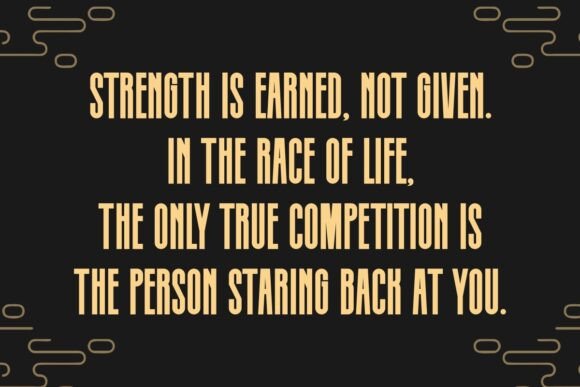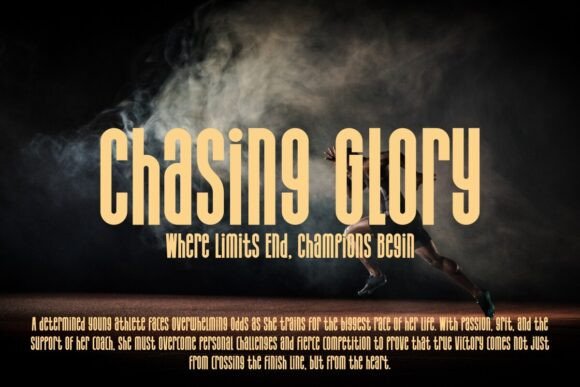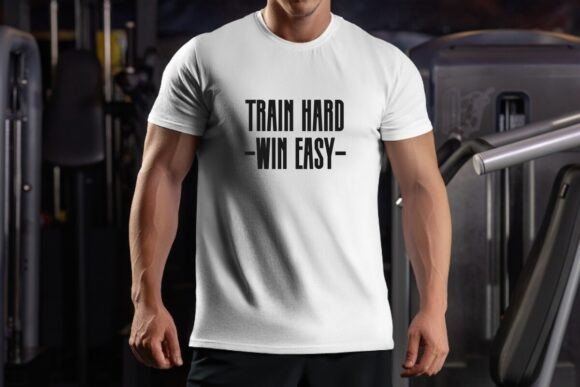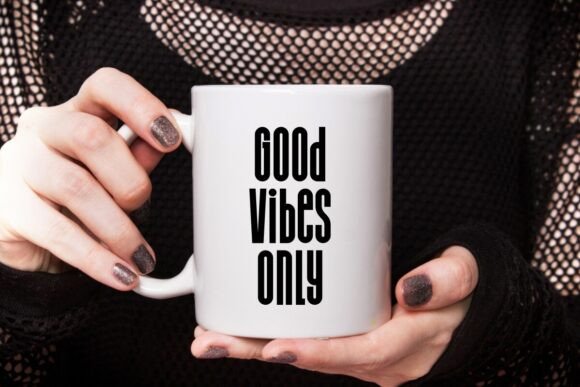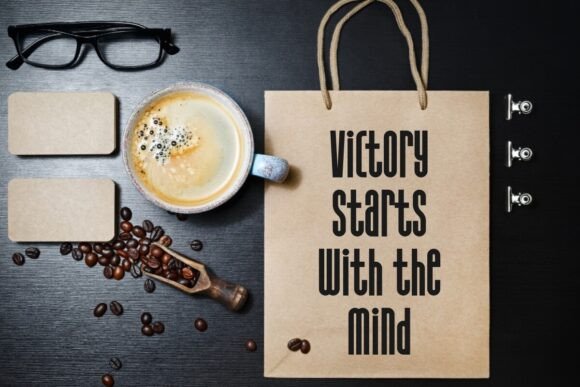
Athletic Vintage Font: Elevate Your Designs with a Touch of Retro Elegance
In the world of design, fonts play a crucial role in conveying the intended message and aesthetic of a project. For those seeking a clean, elegant, and retro sans serif font with a modern twist, Athletic Vintage is an excellent choice. This versatile font is perfect for creating standout quotes, posters, apparel mockups, and various merchandise, making it a valuable addition to any designer’s toolkit.
The Inspiration Behind Athletic Vintage
Athletic Vintage is inspired by modern style with a touch of Christmas spirit, making it an ideal font for both festive and everyday projects. Its sleek design ensures that your creations exude a stylish and timeless feel, perfect for capturing the attention of your audience. Whether you’re working on social media content, holiday-themed designs, or simply looking for a font that adds a touch of elegance to your work, Athletic Vintage is the perfect choice.
Key Features of Athletic Vintage
- Clean and Elegant Design: Athletic Vintage boasts a clean and elegant retro sans serif design that is both modern and sophisticated.
- Versatile: This font is perfect for a wide range of projects, including quotes, posters, apparel mockups, and merchandise like t-shirts, mugs, and tote bags.
- Festive and Everyday Use: With its touch of Christmas spirit, Athletic Vintage is ideal for both festive and everyday projects, offering flexibility in your design work.
- Seamless Social Media Integration: The font’s sleek design makes it perfect for social media content, ensuring your posts stand out with a stylish and timeless feel.
Use Cases for Athletic Vintage
Athletic Vintage’s versatility makes it suitable for a variety of design projects. Here are some use cases where this font truly shines:
- Apparel Mockups: Create stunning t-shirt designs, hoodies, and other apparel with Athletic Vintage, adding a touch of retro elegance to your fashion projects.
- Merchandise: Design eye-catching mugs, tote bags, and other merchandise that will stand out with the font’s sleek and modern aesthetic.
- Social Media Content: Elevate your social media posts with Athletic Vintage, making your content more engaging and stylish.
- Posters and Flyers: Use Athletic Vintage to create visually appealing posters and flyers for events, promotions, or informational purposes.
- Quotes and Typography: Add a touch of elegance to your quotes and typography projects with Athletic Vintage, making them perfect for sharing on social media or using in presentations.
Why Choose Athletic Vintage?
With so many fonts available, why choose Athletic Vintage? Here are a few compelling reasons:
- Unique Style: Athletic Vintage offers a unique blend of retro elegance and modern style, making your designs stand out from the crowd.
- Ease of Use: This font is easy to read and versatile, making it perfect for a wide range of projects and applications.
- Timeless Appeal: Athletic Vintage’s sleek design ensures that your creations will remain stylish and relevant for years to come.
Athletic Vintage is a powerful addition to any designer’s toolkit, offering a clean, elegant, and retro sans serif font with a modern twist. Its versatility, ease of use, and timeless appeal make it perfect for a wide range of projects, from apparel mockups and merchandise to social media content and typography. Whether you’re a professional designer or a crafter, Athletic Vintage is sure to elevate your designs and help you create stunning visual content that captures the attention of your audience.